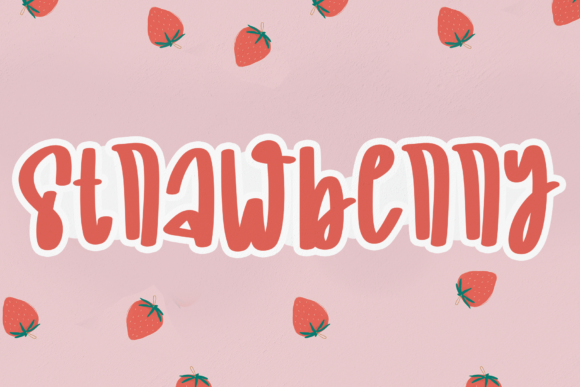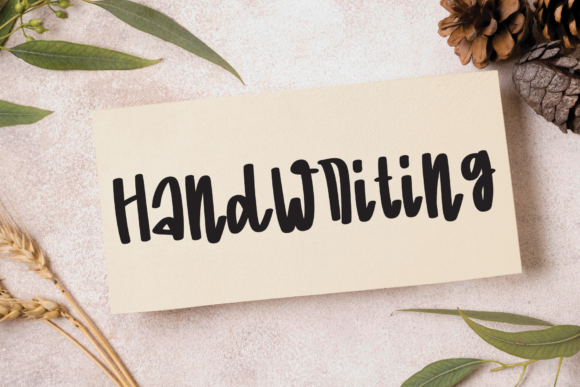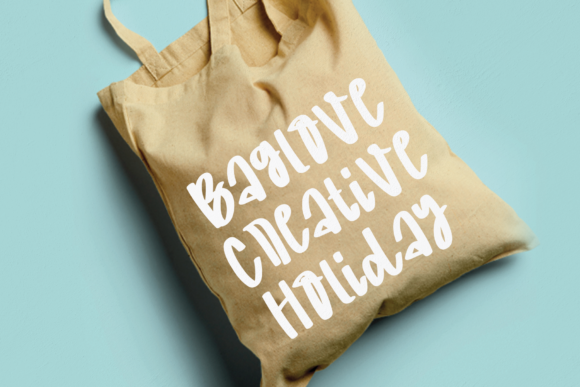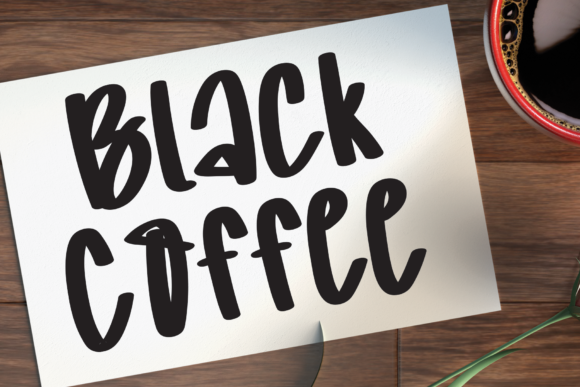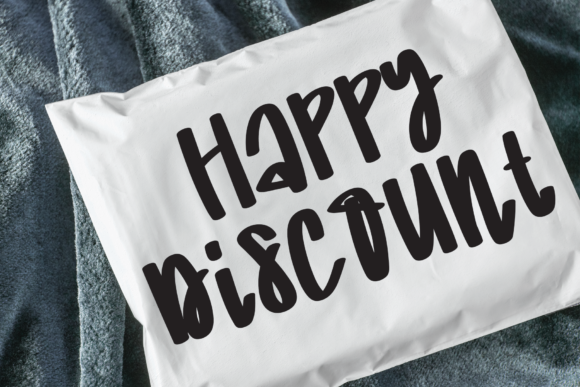
Strawberry Font
About Strawberry Font
Strawberry is a chic, informal and adaptable handwritten font. Its sweet style and casual vibe will make this font a go-to choice for each of the creations that require a relaxed touch.